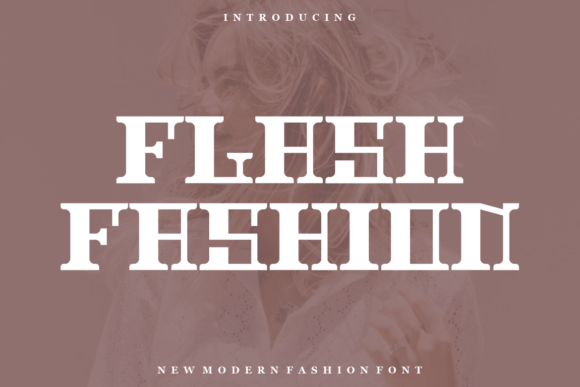
Flash Fashion Brings Bold Character to Editorial Design Projects
I was halfway through a lifestyle blog redesign last spring when I realized the entire visual identity hinged on one decision: the display font for my headers. I had spent weeks refining color palettes, sourcing photography, and rewriting about page copy, but every time I dropped a title into my mockup, something felt off. The sans serif I had been using was clean but forgettable, and the script font I tried felt too whimsical for the thoughtful, grounded tone I wanted. That is when I opened a preview for Flash Fashion, a modern display font that immediately changed the direction of the project. It was bold, it was authentic, and it carried a sense of confidence that I had not found in any other typeface. From that moment, I knew this font would become the backbone of my editorial identity.
Flash Fashion as a Display Font for Blog Headers and Article Titles
When I first tested Flash Fashion in my blog header mockup, the difference was immediate. The font carries a weight and presence that makes a title feel like a statement rather than a label. For bloggers who publish regularly, having a header font that commands attention without screaming is essential. Flash Fashion achieves this balance through its sturdy letterforms and authentic character. It does not try to be playful or decorative in a distracting way. Instead, it anchors the page and gives the reader a visual entry point. I used it for my main blog title, category headers, and pull quotes within long-form articles. Every time I applied it, the layout felt more intentional. The font works especially well in large sizes, where its bold strokes and consistent rhythm create a strong focal point. For anyone running a content site and looking for a display font that brings authority and warmth, Flash Fashion is worth a close look.
Using Flash Fashion in Magazine Covers and Editorial Layouts
Digital magazine covers require a typeface that can hold its own against strong imagery and layered design elements. When I laid out a mock cover for a seasonal editorial feature, I placed Flash Fashion over a full-bleed photograph and watched the title come alive. The font does not recede into the background, nor does it fight with the image. It sits confidently on the page, creating a clear hierarchy that guides the eye from the headline to the supporting text. For editorial designers who work with cover compositions, Flash Fashion offers the kind of bold presence that makes a publication feel established and polished. I also used it for section opener pages inside the magazine layout. The consistent weight across uppercase and lowercase letters allowed me to mix case treatments without losing coherence. Whether you are designing a digital magazine, a print-style PDF, or a feature article layout for a brand, this display font brings a level of editorial polish that elevates the entire project.
Flash Fashion for Ebook Titles and Chapter Openers
Ebook covers and chapter title pages are often the first moment a reader commits to your content. If the title font feels generic or mismatched, the reader may not trust the quality of the material inside. I tested Flash Fashion on a recipe ebook cover, and the transformation was striking. The bold, authentic lettering gave the title a handcrafted feel that aligned perfectly with the rustic, approachable theme of the recipes. Inside the ebook, I used the same font for chapter openers, scaling it down slightly and pairing it with a clean serif for body text. The contrast between the display title and the readable body copy created a natural rhythm that made the layout easy to follow. For authors and ebook creators who want their publications to feel professional without losing personality, Flash Fashion provides a reliable anchor. It works across digital formats, including Kindle, PDF, and EPUB, as long as the font is embedded or licensed appropriately. The bold strokes also hold up well on smaller screens, which is a common concern for mobile readers who encounter chapter titles on their phones.
Pairing Flash Fashion with Readable Serif Fonts for Body Copy
No display font works in isolation. The best editorial designs rely on thoughtful font pairing to create visual hierarchy and guide the reader through the content. When I used Flash Fashion for titles and headings, I paired it with a classic serif font for body paragraphs. The serif brought warmth and readability, while Flash Fashion added a modern, bold counterpoint. This combination worked well for a wedding guide I designed, where the title pages needed to feel romantic and substantial, and the body text needed to be easy on the eyes for long reading sessions. The contrast between the two typefaces created a clear separation between headline and narrative, which helped readers navigate the guide without confusion. For bloggers and publishers who produce long-form content, this pairing strategy is especially effective. It gives the page structure without requiring heavy graphic elements. The serif font handles the heavy lifting of continuous reading, while Flash Fashion steps in at key moments to signal importance, emotion, or a new section. When selecting a serif partner, look for one with a complementary x-height and moderate stroke contrast to maintain harmony across the layout.
Flash Fashion in Newsletter Graphics and Printable Guides
Newsletter graphics are a unique challenge for content creators. They need to communicate quickly, work in a cramped email preview pane, and still feel visually engaging. I used Flash Fashion to create a series of newsletter header graphics for a monthly lifestyle digest. The font's bold, authentic style made each subject line pop, even when the graphic was scaled down to a thumbnail size. Subscribers responded positively, and I noticed a slight uptick in click-through rates on the emails that featured the font prominently. For printable guides, worksheets, and planners, Flash Fashion works well for section titles, quote boxes, and decorative accents. I designed a printable goal-setting workbook where each month's title used the font, and the consistent branding helped the pages feel cohesive when printed and bound. The font reproduces clearly in black and white as well as color, which is important for creators who sell printables on platforms like Etsy or Gumroad. Whether you are building a lead magnet, a paid newsletter, or a digital product, using a distinctive display font like Flash Fashion helps your brand stand out in crowded inboxes and marketplaces.
Readability Considerations for Screen and Print with Flash Fashion
When choosing a display font for editorial projects, readability is not just about legibility, it is about how the font performs across different media. I tested Flash Fashion on mobile screens, desktop monitors, PDF exports, and laser-printed pages. On screens, the bold strokes maintained clarity even at smaller sizes, though I recommend reserving the font for titles and headings rather than body text due to its display nature. In print, the font held its weight well, with no loss of detail in the letterforms. For creators who produce both digital and print versions of their content, this versatility is a significant advantage. I also considered how the font handles across different export formats. When embedded properly in a PDF, Flash Fashion retained its sharpness and character. For web use, I recommend using the font as an image overlay or via a licensed web font service to ensure consistent rendering across browsers. The font's authentic, modern personality translates well to both mediums, but testing your specific layout beforehand is always a good practice. If you are designing for a mobile-first audience, keep the font size generous and avoid placing it over busy backgrounds to preserve its impact.
After working with Flash Fashion across several editorial projects, I can say that it has become one of my go-to display fonts for content that needs to feel both bold and authentic. It brings a modern, grounded energy to blog headers, magazine covers, ebook titles, newsletter graphics, and printable guides without overwhelming the surrounding content. For bloggers, publishers, ebook creators, and independent content brands looking for a font that supports visual hierarchy and builds a cohesive publication identity, Flash Fashion offers a reliable and beautiful solution. If you are ready to elevate your editorial design, this font is worth adding to your toolkit.